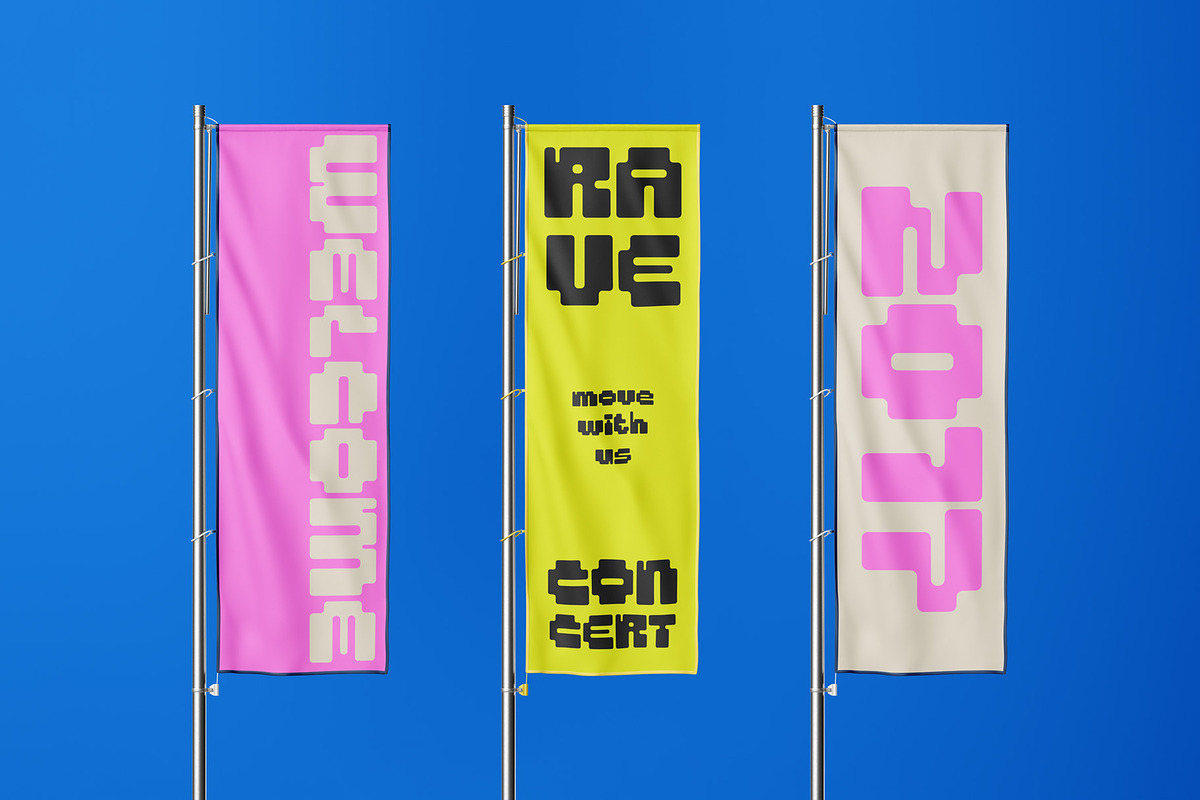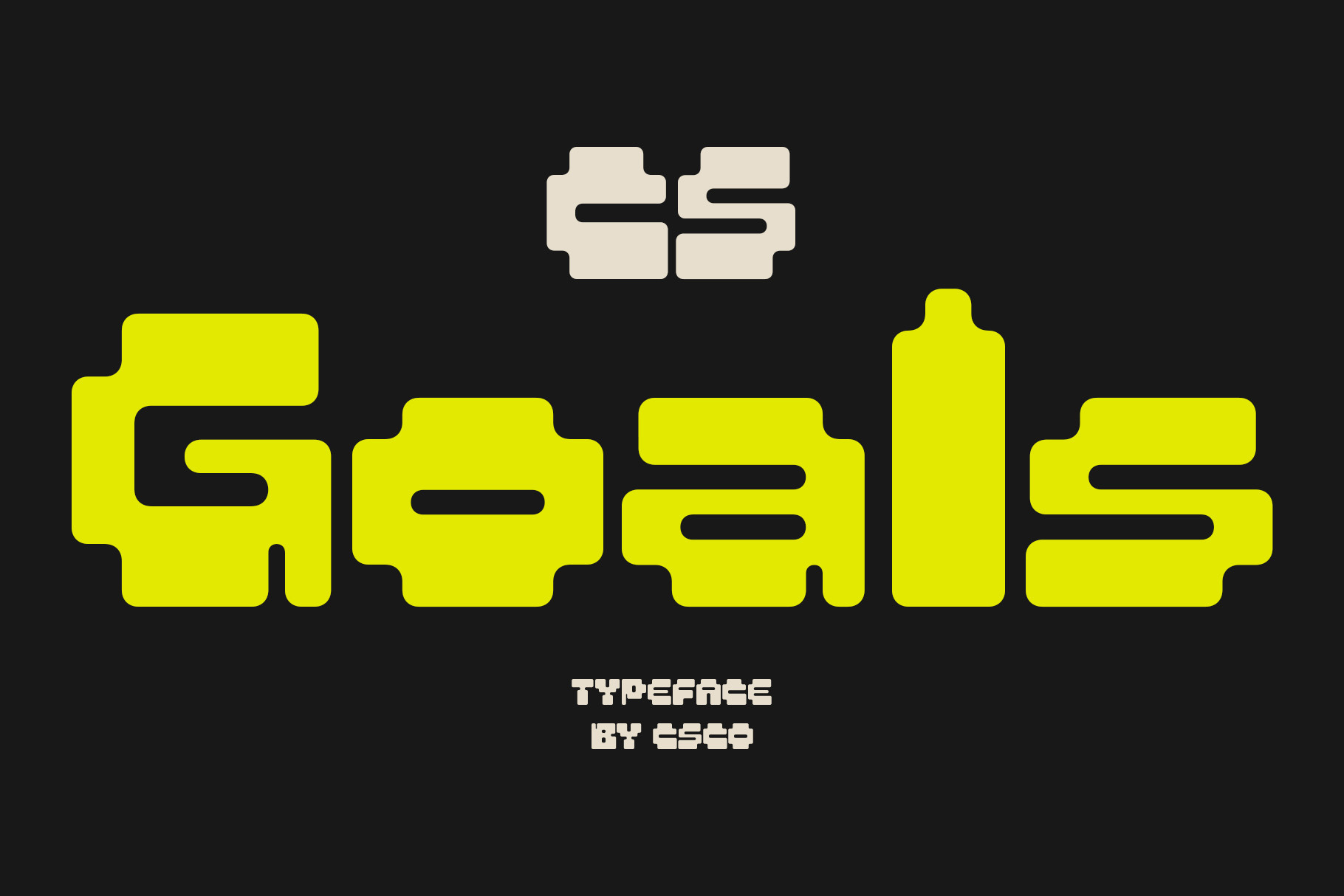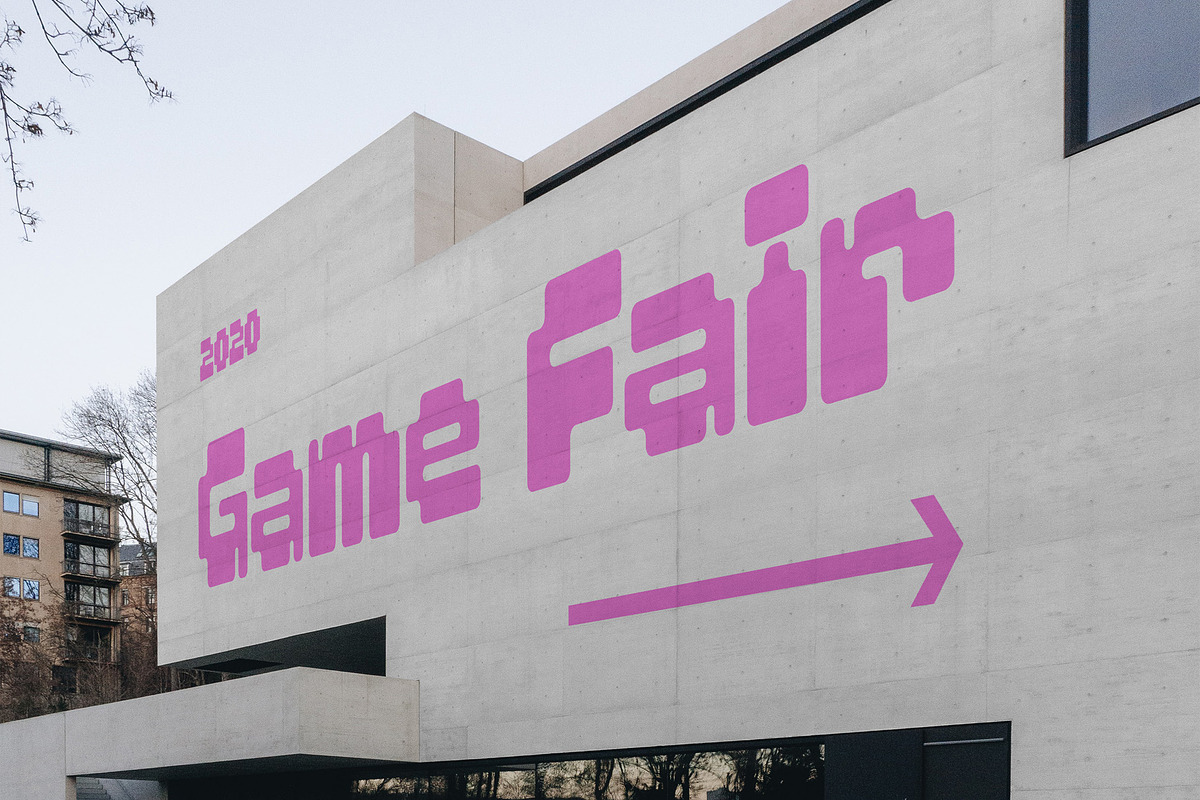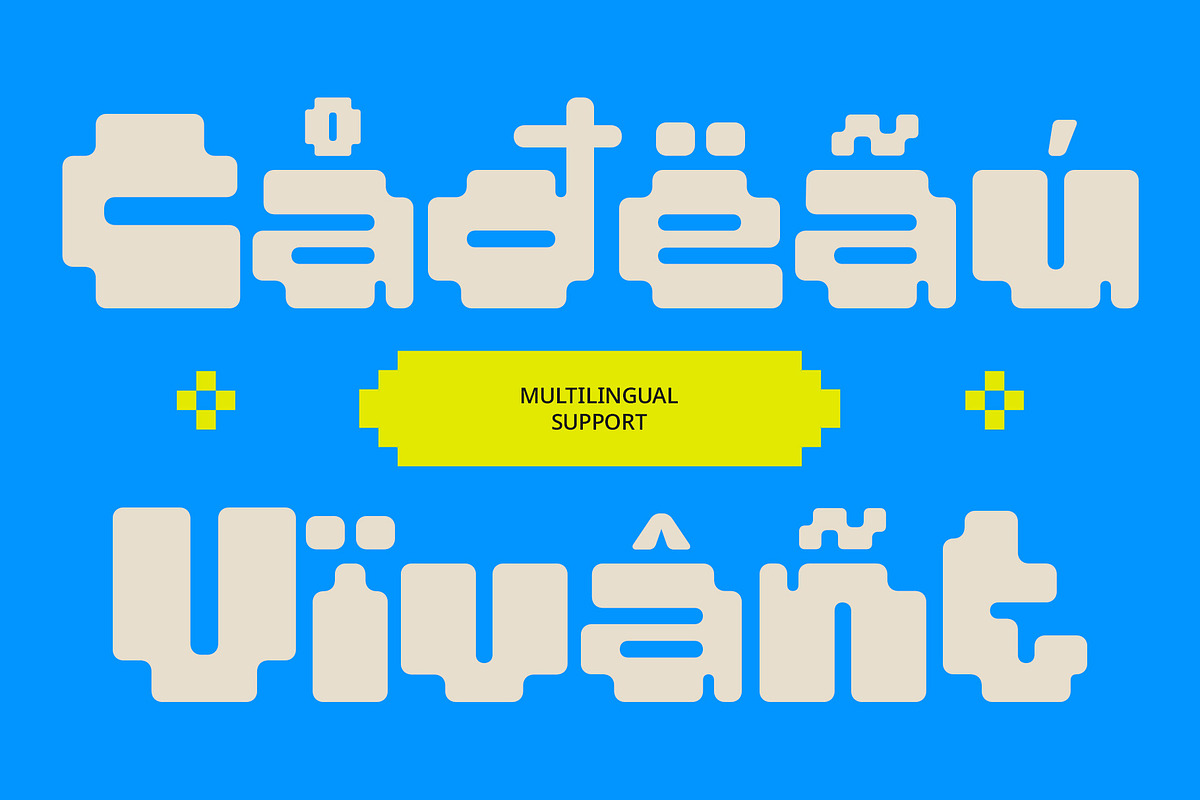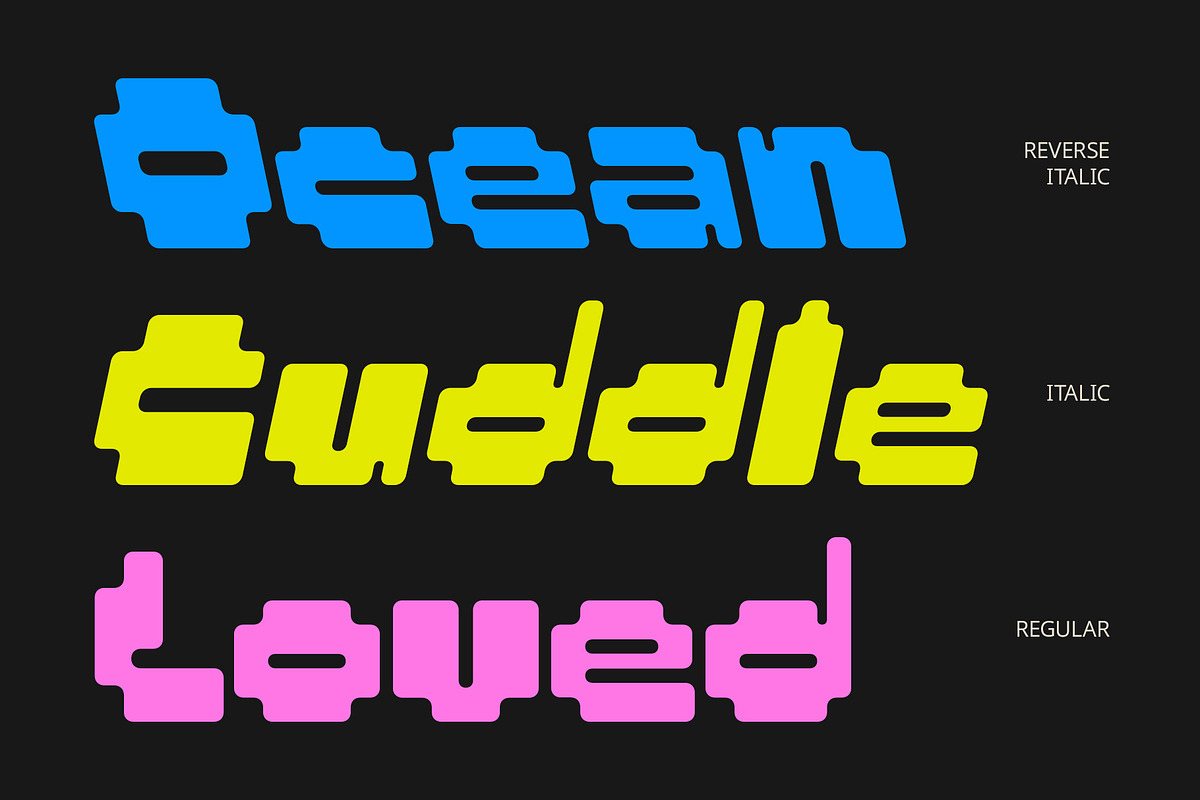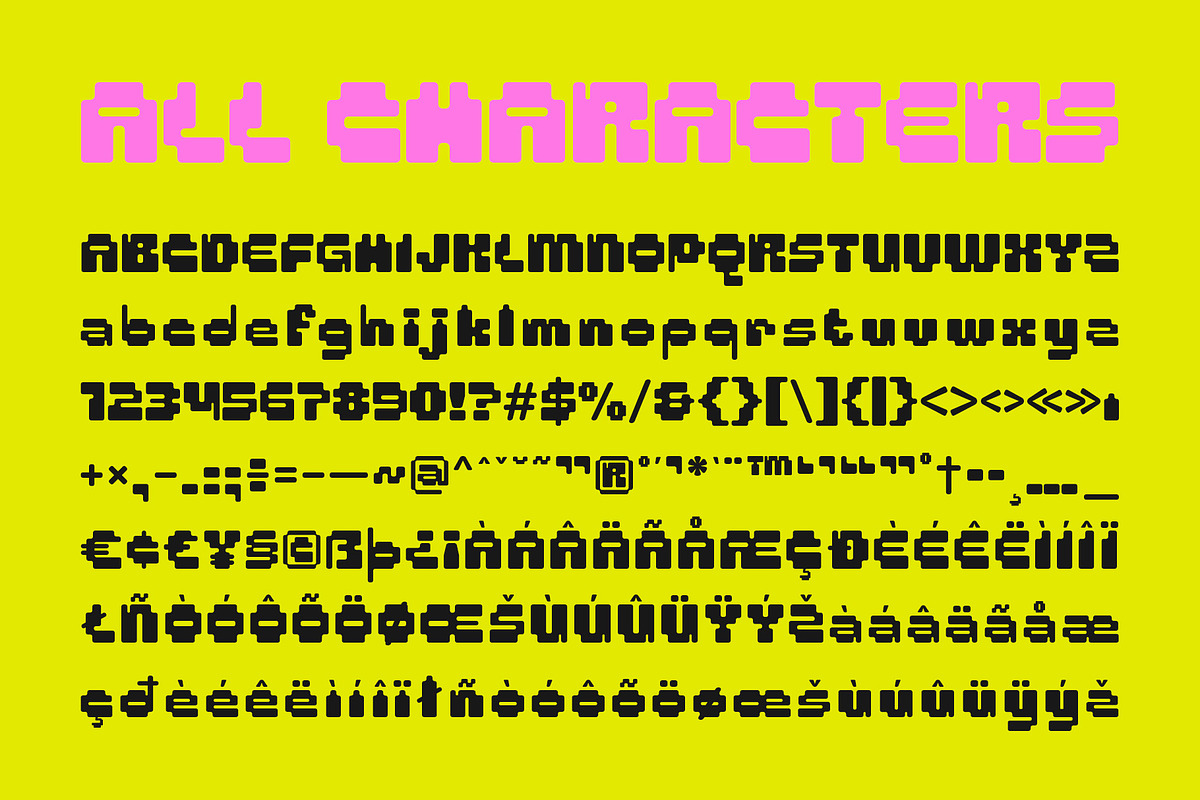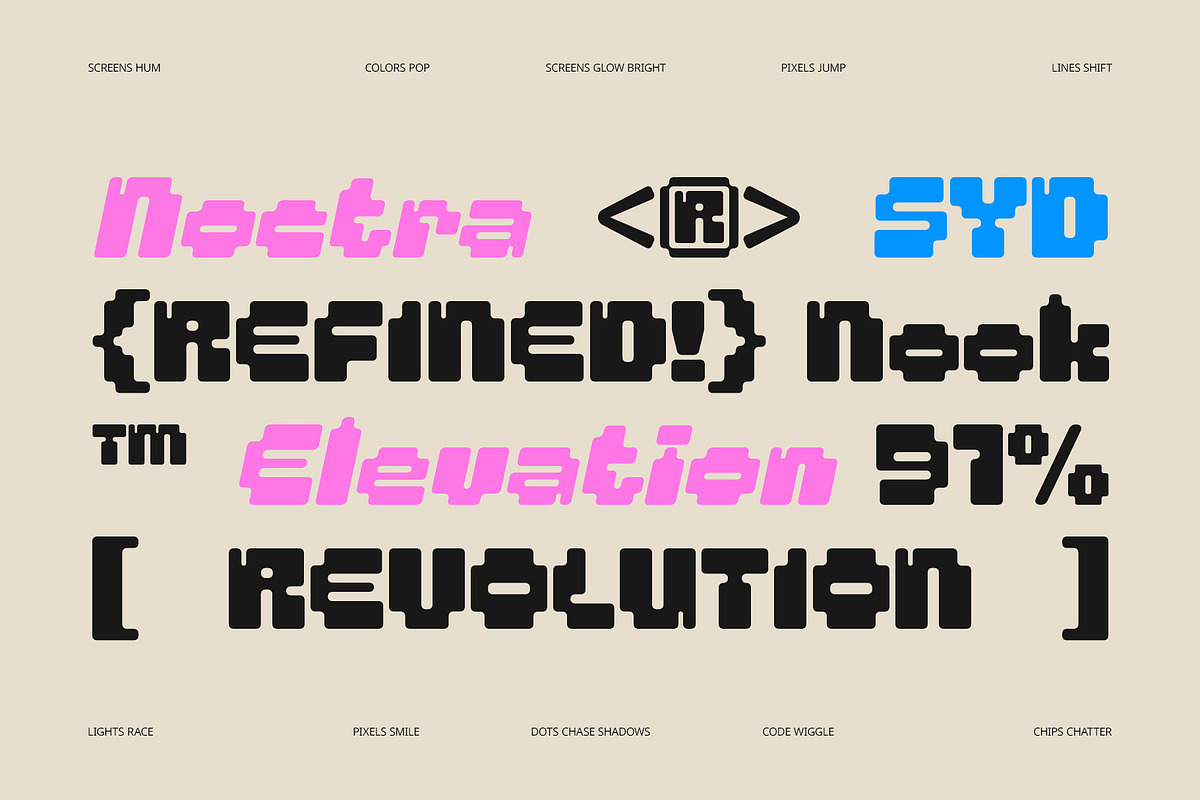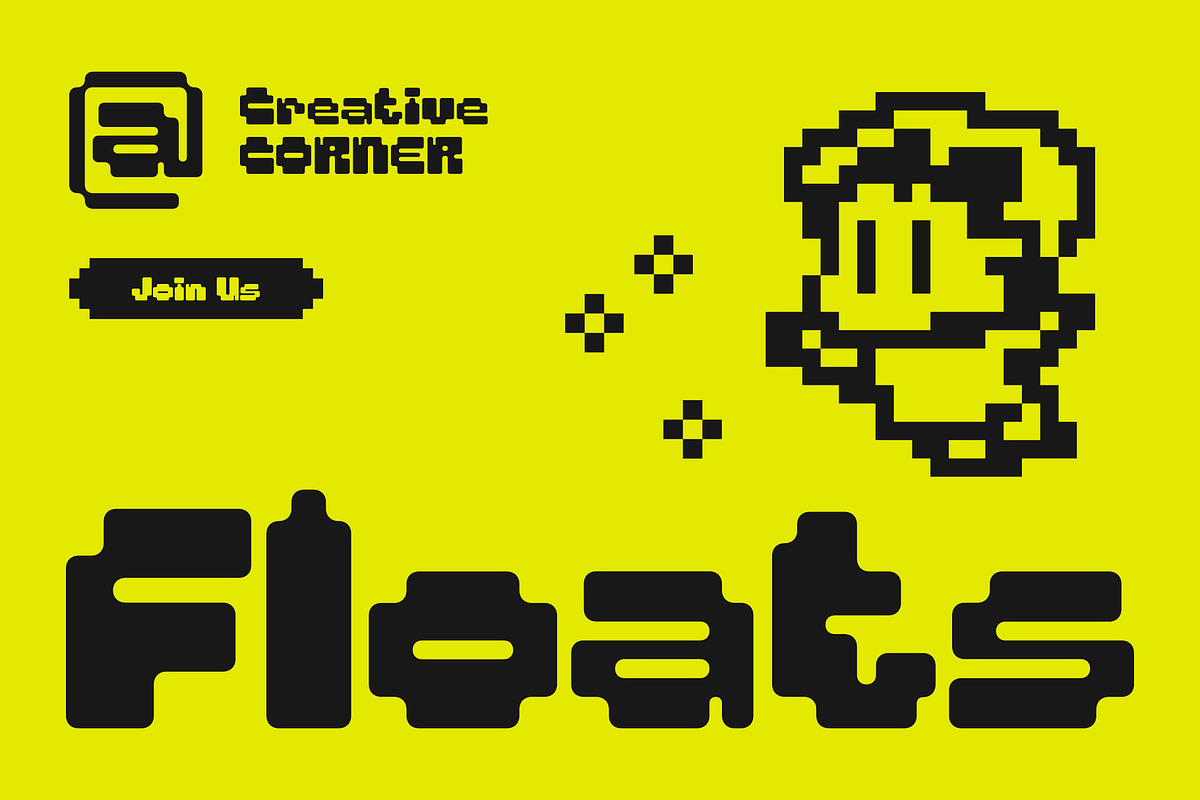
CS Goals – Pixel Font
CS Goals – Pixel Font with Retro Funk
Retro Digital Aesthetic with Funky Energy CS Goals is a bold pixel display font that fuses the spirit of classic digital type with a vibrant, expressive twist. Inspired by the unmistakable charm of 8-bit video games and early computer graphics, this typeface features a monospaced, boxy structure enhanced with playful proportions that add energy and personality to every letterform.
Playful Proportions and Monospaced Style Built with consistent pixel units, CS Goals features playful letterforms that break from rigidity while maintaining the classic pixel grid. This balance between structure and creativity gives the font a standout personality—ideal for modern visuals that nod to retro digital culture.
Designed for Bold, Youthful, and Game-Inspired Designs Perfect for gaming visuals, music posters, and youth-centric branding, CS Goals delivers a high-energy tone with a dose of ’90s nostalgia. Its funky form and digital style make it a go-to choice for projects that want to feel bold, fun, and instantly eye-catching.
Versatile for Creative Retro Themes Whether you’re crafting a nostalgic poster, a video game interface, or branding for a playful, tech-savvy audience, CS Goals offers a unique mix of retro flair and youthful expression. It’s pixelated, proud, and packed with personality.
- CS Goals Regular
- CS Goals Italic
- CS Goals Reverse Italic